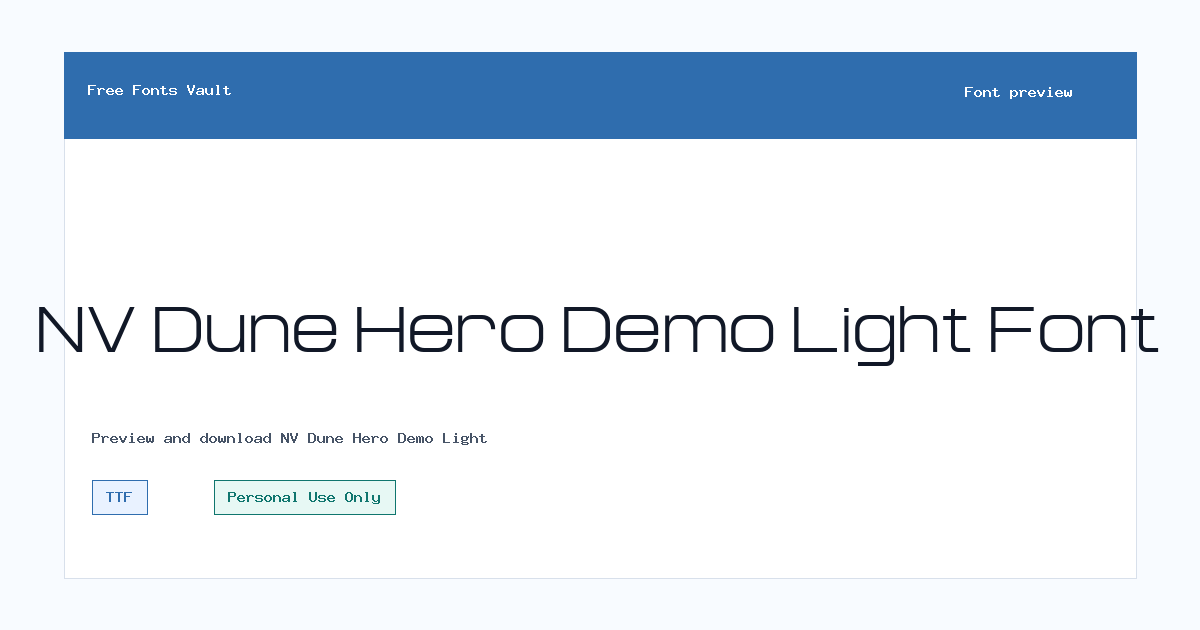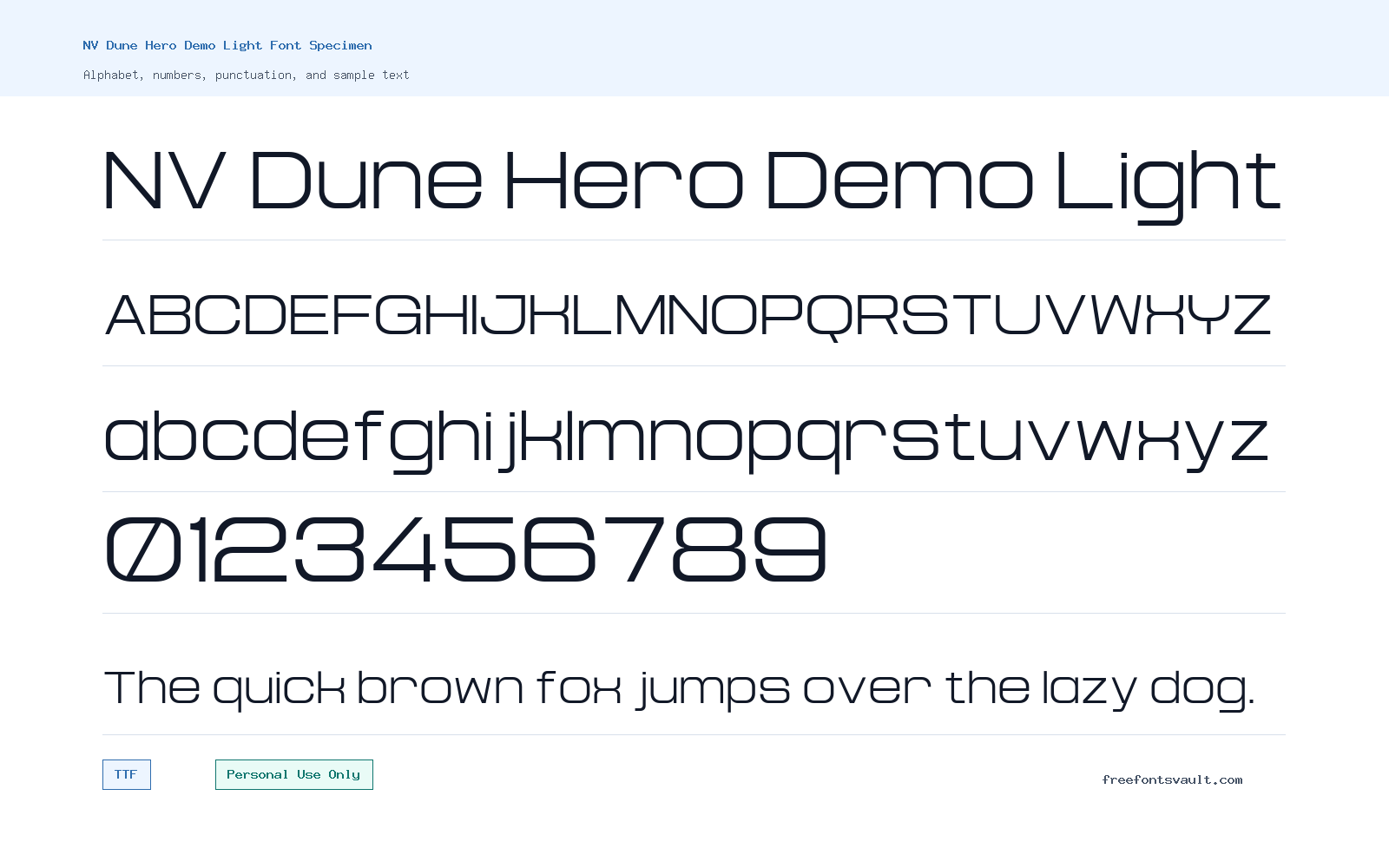
NV Dune Hero Demo Light
- Designer NovaraType
- Foundry NovaraType
NV Dune Hero Demo Light is a light-weight sans serif demo font from NovaraType. Its thin, clean look makes it useful for testing elegant headings, display layouts, and polished visual concepts where a lighter voice is needed.
About NV Dune Hero Demo Light
NV Dune Hero Demo Light works best when the design needs a restrained sans serif rather than a heavy display face. The available style is a Light weight, so it is naturally better suited to titles, short labels, refined logo drafts, poster text, packaging mockups, and presentation graphics than to dense body copy. The lighter stroke can give words a modern, airy feel, especially when used with generous spacing and enough contrast against the background.
- Light 300-weight sans serif style for clean headings and refined short text
- Normal upright style, useful for simple title layouts and logo concept testing
- Logo concepts and wordmark drafts where a light sans serif tone is desired
- Posters, covers, and social graphics that use short lines of text
- Web mockups, landing-page hero headings, and UI concept screens
NV Dune Hero Demo Light is credited to NovaraType as the designer and foundry.
Use NV Dune Hero Demo Light in short, high-contrast settings first. Light fonts can lose clarity at small sizes, on textured backgrounds, or in low-contrast color combinations. Try it in all caps, title case, and spaced-out headings to see which setting fits your layout. For longer text, pair it with a sturdier sans serif or readable serif body font so the design stays clear. If you are building a logo or web mockup, test the font at the exact size and color you plan to show, because thin strokes can look very different across screens and exports.
Who designed NV Dune Hero Demo Light?
The font is credited to NovaraType.
What kind of font is NV Dune Hero Demo Light?
What is NV Dune Hero Demo Light best used for?
It is best for short text such as logo drafts, headings, posters, web mockups, brand boards, and presentation graphics. It is less ideal for long paragraphs because the light weight may reduce readability at small sizes.
What should I pair with NV Dune Hero Demo Light?
Pair it with a more readable sans serif or serif for body text. Keep the Light style for headings, names, labels, and short display lines so the page or poster remains easy to read.